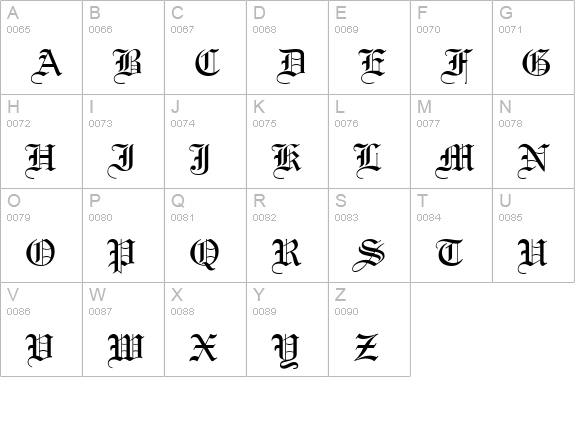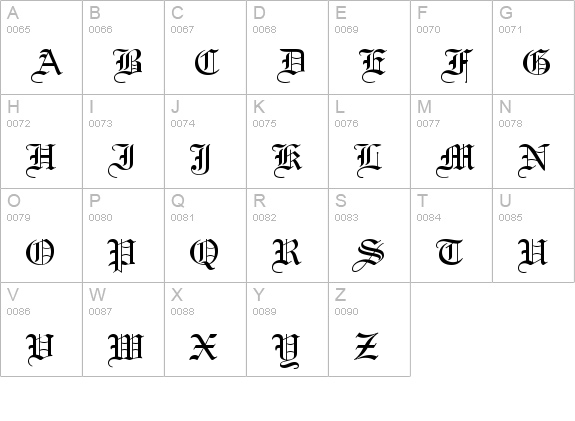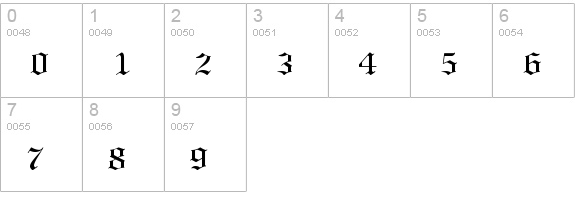
The Lincoln font is a classic and elegant typeface that exudes sophistication and charm. Its timeless design makes it perfect for a wide range of projects, from invitations to branding to editorial design. With its clean lines and graceful curves, Lincoln brings a touch of refinement to any text it graces. Best of all, Lincoln is available for free download at FontsMarket.com. This means you can add this exquisite font to your collection without breaking the bank. Don't miss out on the opportunity to enhance your designs with the beauty and versatility of Lincoln font. Download it today and elevate your creative projects to new heights!